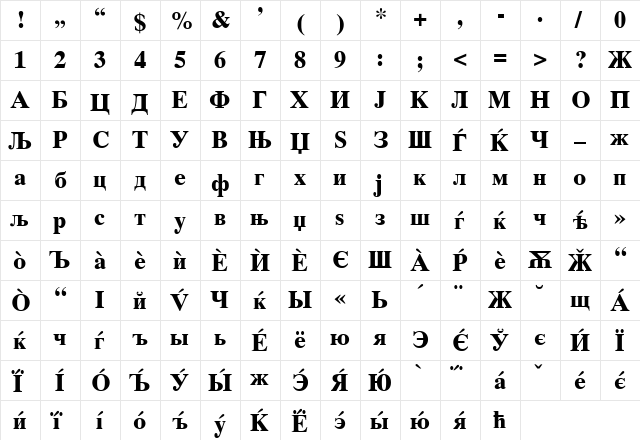
Pulstajms7 Bold
Design Context for Pulstajms7 Typeface
Pulstajms7 is a composed and adaptable typeface that performs quietly and consistently across a wide range of design contexts. Its bold stroke weight gives it real presence on the page.